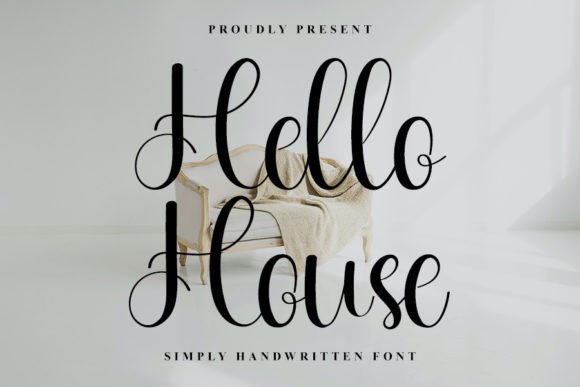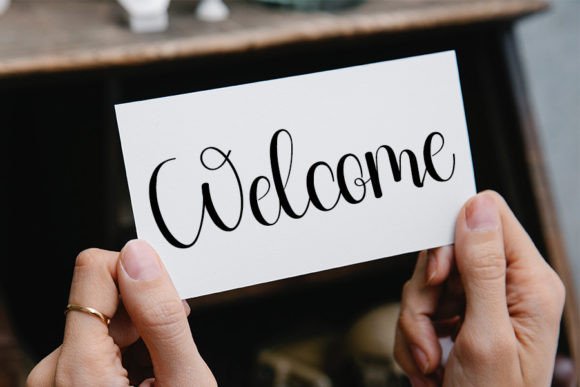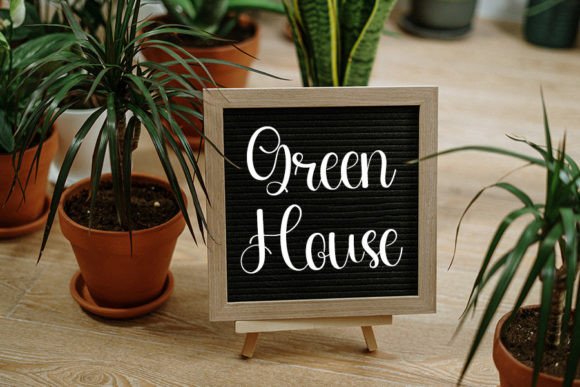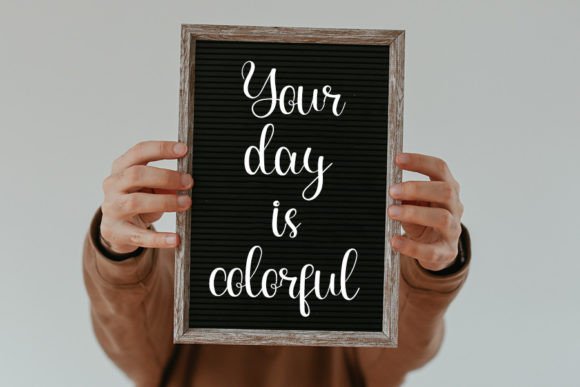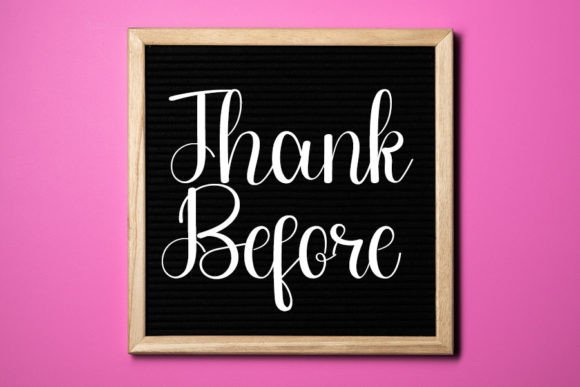
Hello House Font
About Hello House Font
**Hello House** is a charming and elegant handwritten font that combines a refined touch with a timeless and distinct style. This versatile typeface is an excellent choice for a wide range of creative projects, allowing you to infuse a sense of elegance and sophistication into your favorite designs. Whether you’re working on branding, invitations, quotes, or any project close to your heart, **Hello House** elevates your designs with its unique and refined typography.
The font’s handwritten style is characterized by its beautifully balanced letterforms and graceful strokes. It exudes a sense of charm and timeless beauty, making it ideal for projects that require a touch of elegance. **Hello House** enhances your designs with its sophisticated and polished appearance, ensuring that your creations leave a lasting impact.
**Hello House** is a font that seamlessly blends classic elegance with modern versatility. Its simplicity and elegance ensure both readability and aesthetics, making it adaptable to various design contexts. Whether you’re crafting brand identities, designing invitations, or adding a touch of sophistication to your quotes, this font brings a level of timeless beauty that captivates your audience.
What sets **Hello House** apart is its ability to convey a sense of timeless elegance in your designs. It invites your audience to appreciate the refined craftsmanship behind your projects, leaving a lasting impression of sophistication and style. With **Hello House** as part of your creative toolkit, you have the means to craft designs that stand out for their classic beauty and enduring appeal.
In conclusion, **Hello House** is a charming and elegant handwritten font that adds a touch of timeless beauty to your design projects. Embrace its unique style and refined letterforms, and let it inspire you to create spectacular and memorable designs that exude sophistication. With **Hello House** at your disposal, your creative possibilities are boundless, enabling you to craft exquisite and unforgettable works of art through its elegant handwritten typography.